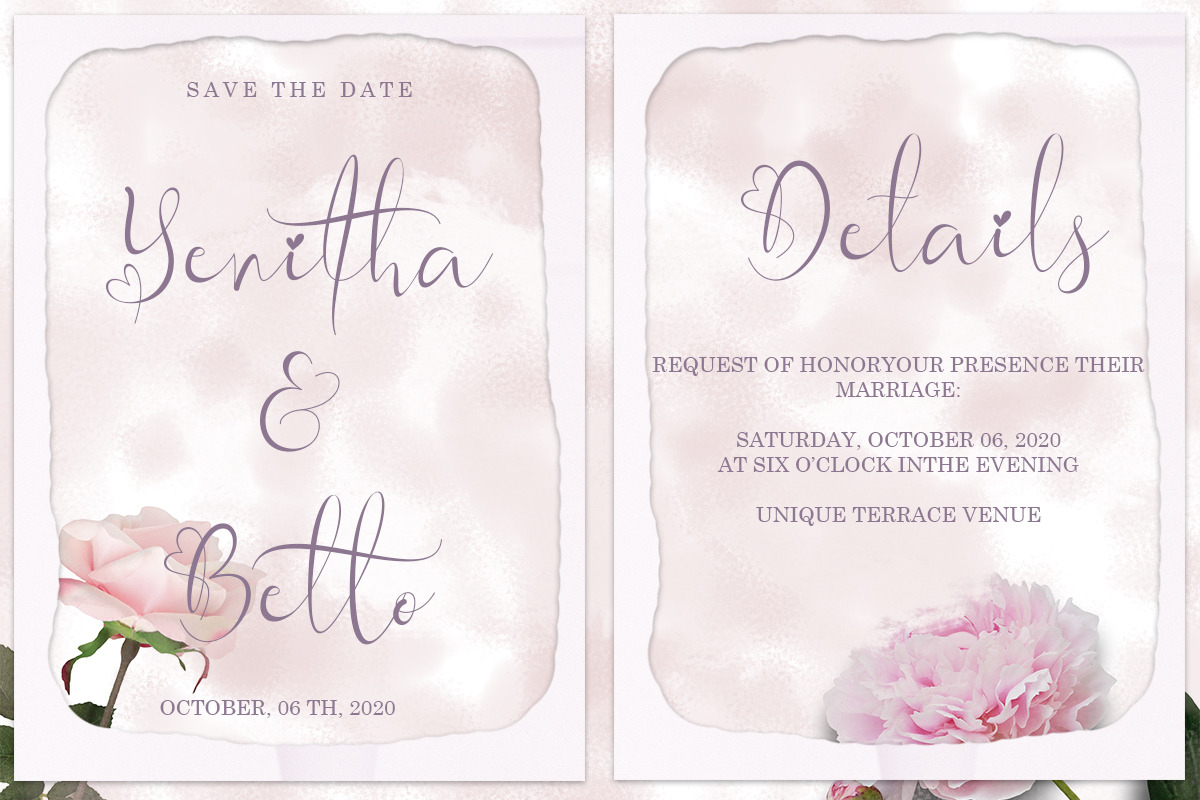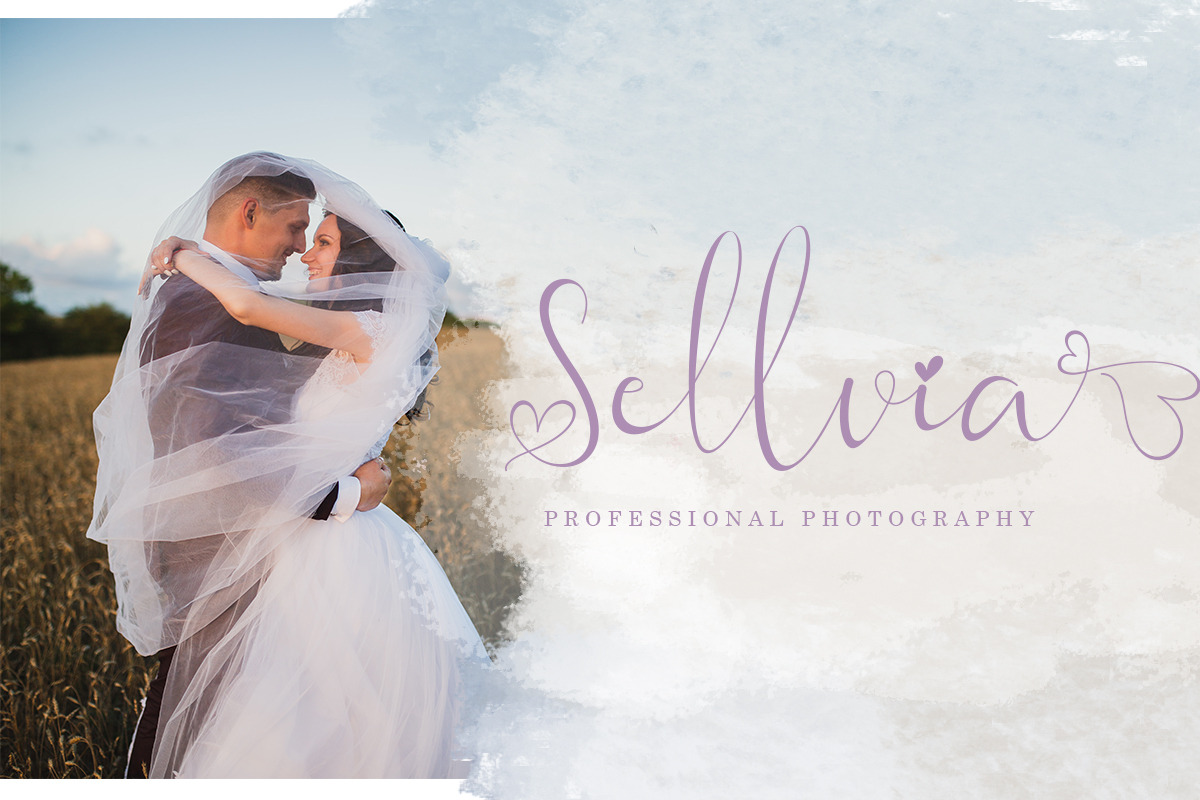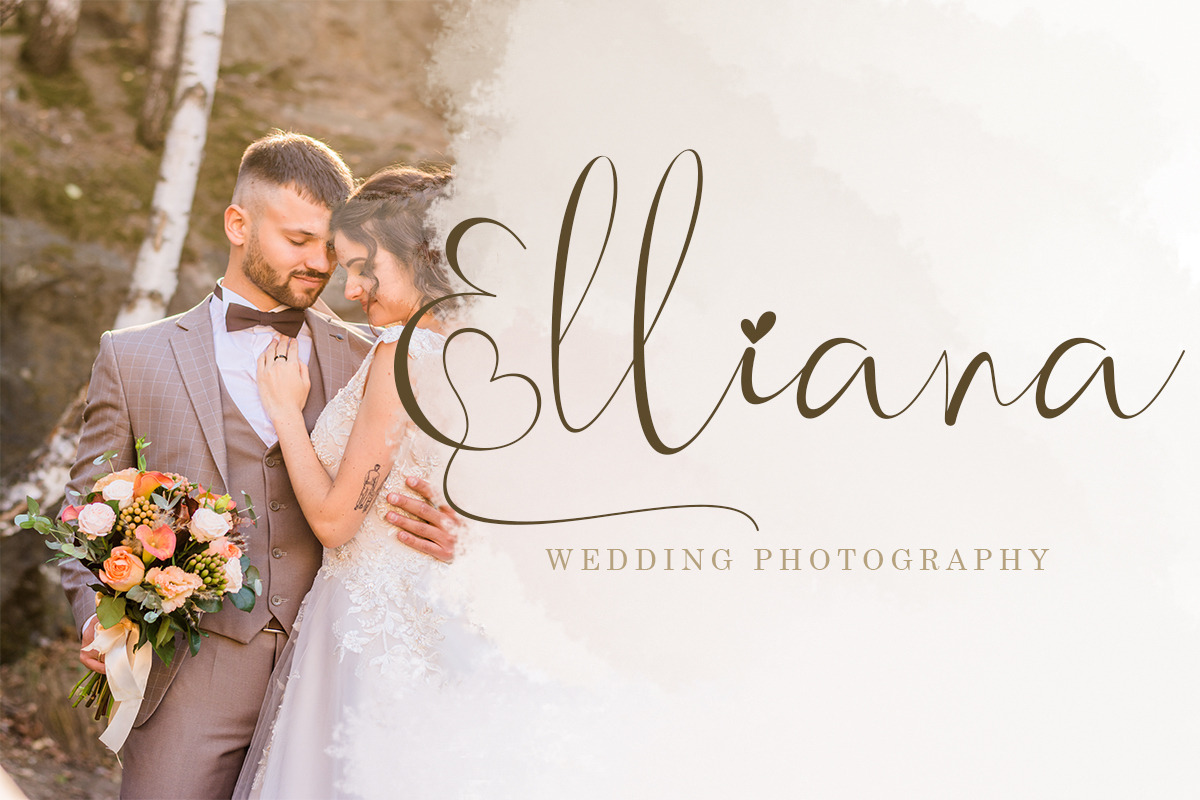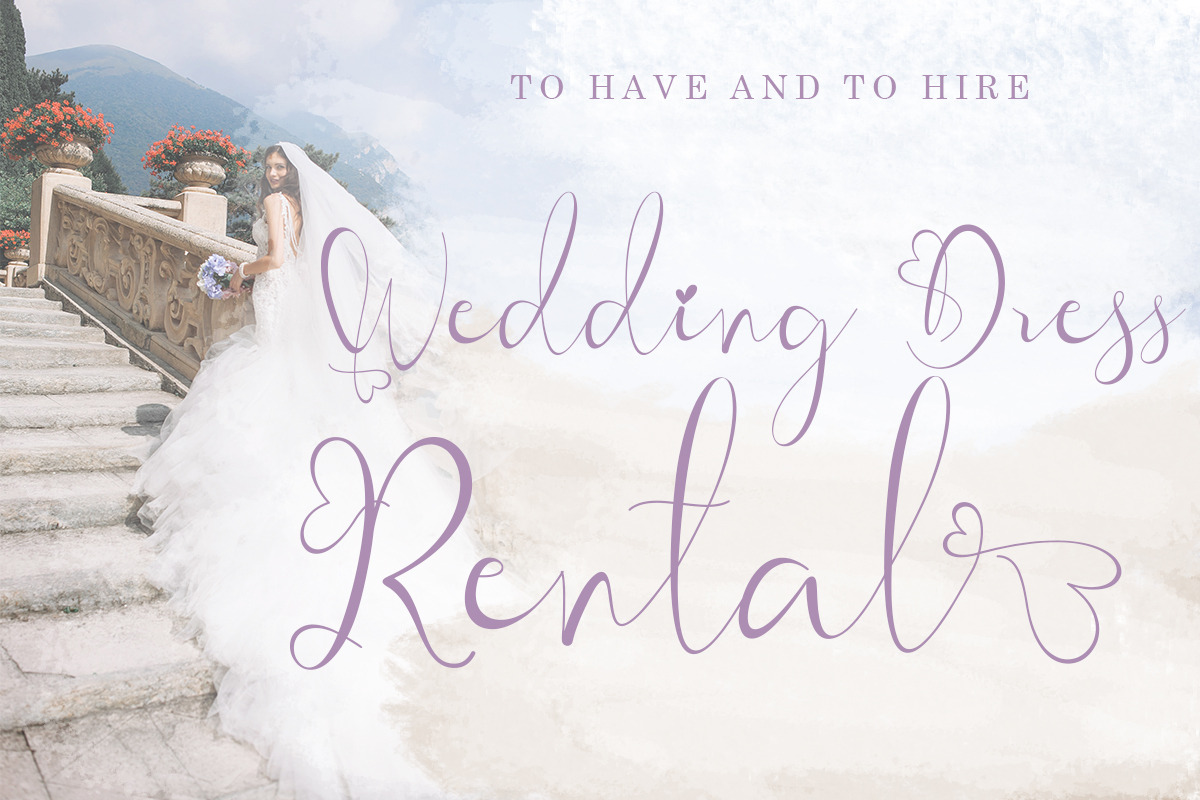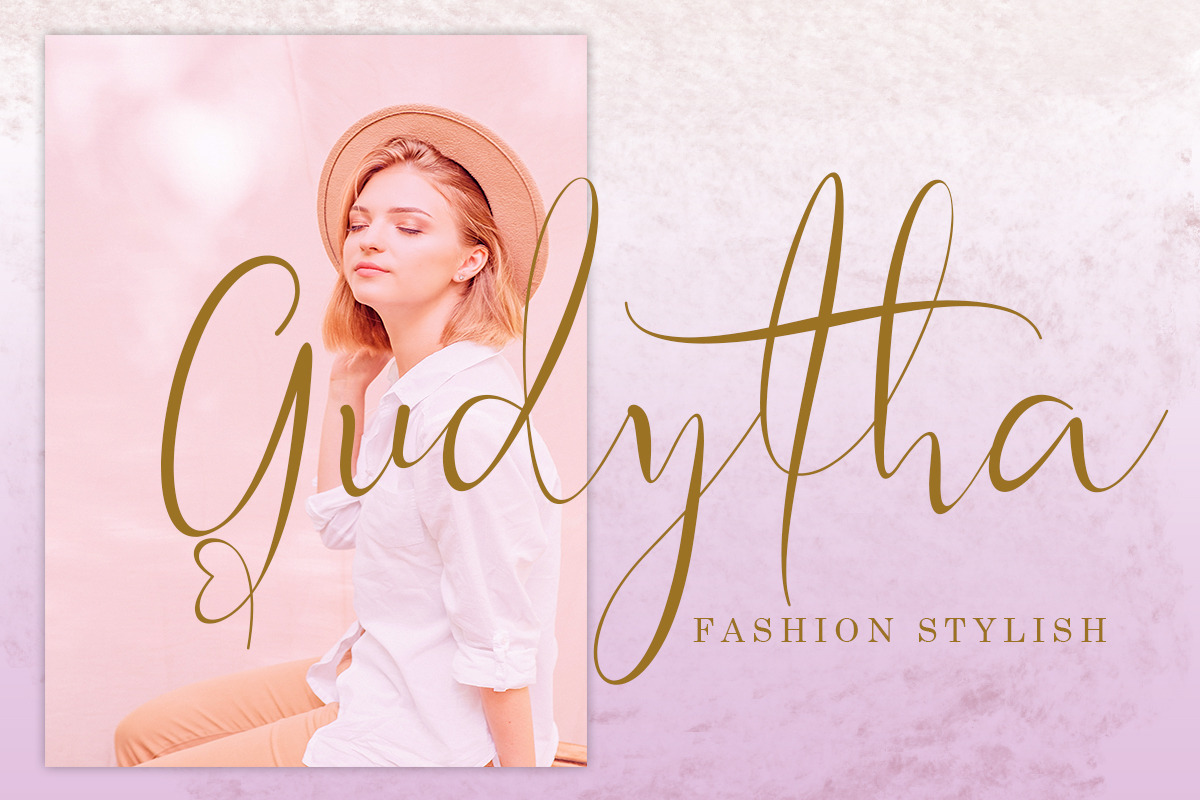
Adellia
This font is named Adellia. Adellia is a font that is very elegant, beautiful and has a romantic impression. It is suitable for beautifying all types of your work. This font is very unique and has high quality. It is suitable for wedding designs, branding, invitations, signatures, labels, logos, promotion of your business, creating social media status, quotes and more.